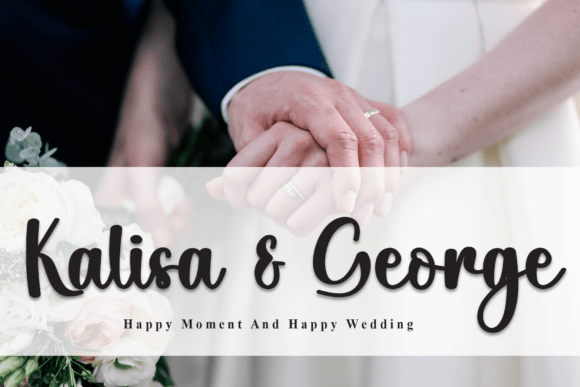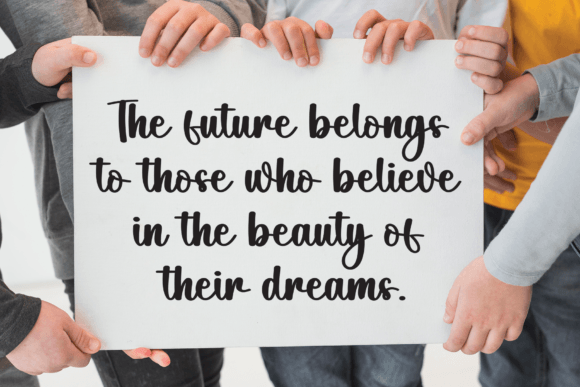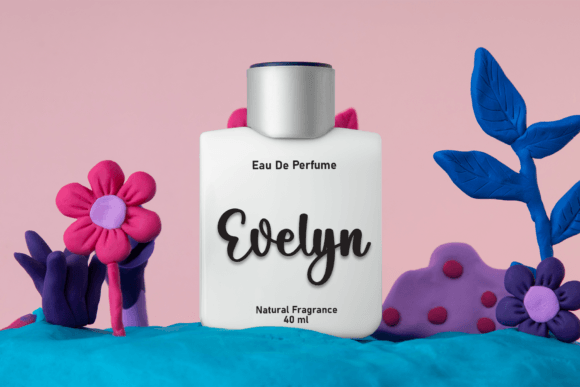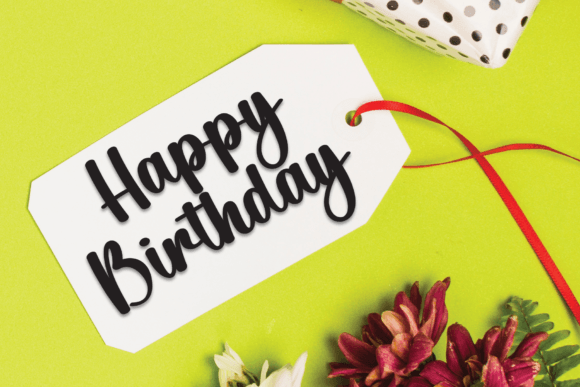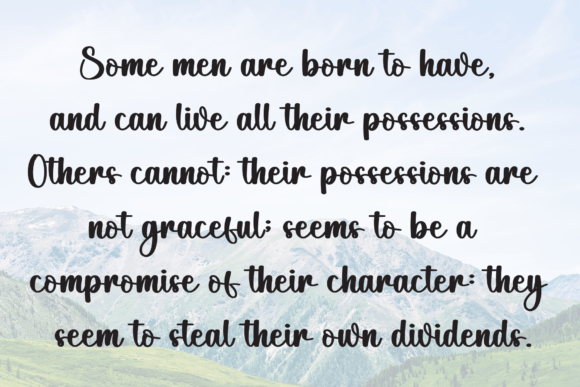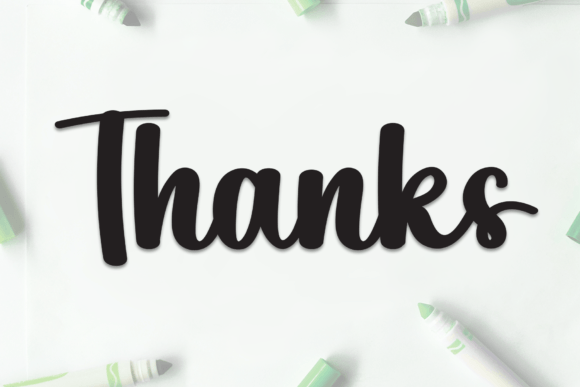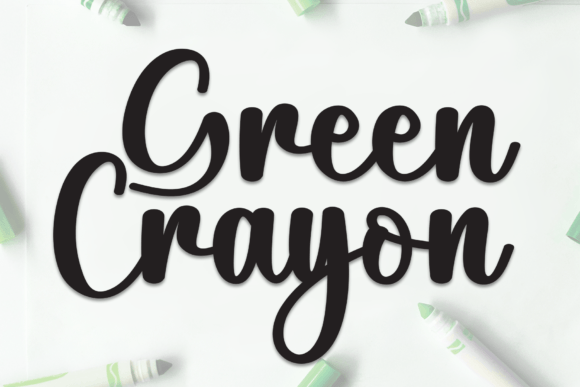
Introducing Green Crayon Font: Elevate Your Designs with Elegant Script
Are you a designer or crafter looking for a font that adds a touch of sophistication and whimsy to your projects? Look no further than the Green Crayon Font. This stylish and incredibly elegant script font is perfect for a variety of design applications, from wedding invitations to business cards.
What is Green Crayon Font?
Green Crayon Font is a beautiful script font that boasts a unique, hand-crafted look. Its elegant strokes and flowing curves make it perfect for designs that require a personal touch. The font’s distinctive style is reminiscent of handwritten text, making it ideal for projects where you want to add a touch of warmth and personality.
Key Features of Green Crayon Font
• Elegant Script Style: Green Crayon Font features a sophisticated script style that is perfect for formal and informal designs.
• Hand-Crafted Look: The font’s hand-crafted look gives it a unique and personal feel, making it perfect for designs that require a touch of whimsy.
• Highly Versatile: Green Crayon Font can be used for a wide range of design applications, from wedding invitations to business cards.
• Easy to Read: Despite its elegant style, Green Crayon Font is highly legible, making it perfect for designs that require a clear and concise message.
Uses for Green Crayon Font
Green Crayon Font is an incredibly versatile font that can be used for a wide range of design applications. Here are some ideas to get you started:
• Wedding Invitations: Add a touch of elegance and sophistication to your wedding invitations with Green Crayon Font.
• Thank You Cards: Show your appreciation with beautifully designed thank you cards featuring Green Crayon Font.
• Quotes and Greeting Cards: Use Green Crayon Font to add a touch of personality to your quotes and greeting cards.
• Logos and Business Cards: Create a lasting impression with Green Crayon Font, perfect for logos and business cards.
Why Choose Green Crayon Font?
With so many fonts available, why choose Green Crayon Font? Here are just a few reasons:
• Unique Style: Green Crayon Font boasts a unique and distinctive style that will set your designs apart from the rest.
• Elegant and Whimsical: The font’s elegant and whimsical style makes it perfect for designs that require a touch of sophistication and personality.
• Highly Versatile: Green Crayon Font can be used for a wide range of design applications, making it a great addition to any designer’s toolkit.
Tips for Using Green Crayon Font
Here are a few tips for using Green Crayon Font in your designs:
• Pair with Other Fonts: Experiment with pairing Green Crayon Font with other fonts to create a unique and visually appealing design.
• Use for Headlines and Titles: Green Crayon Font is perfect for headlines and titles, where its elegant style can really shine.
• Add a Personal Touch: Use Green Crayon Font to add a personal touch to your designs, making them more relatable and engaging.